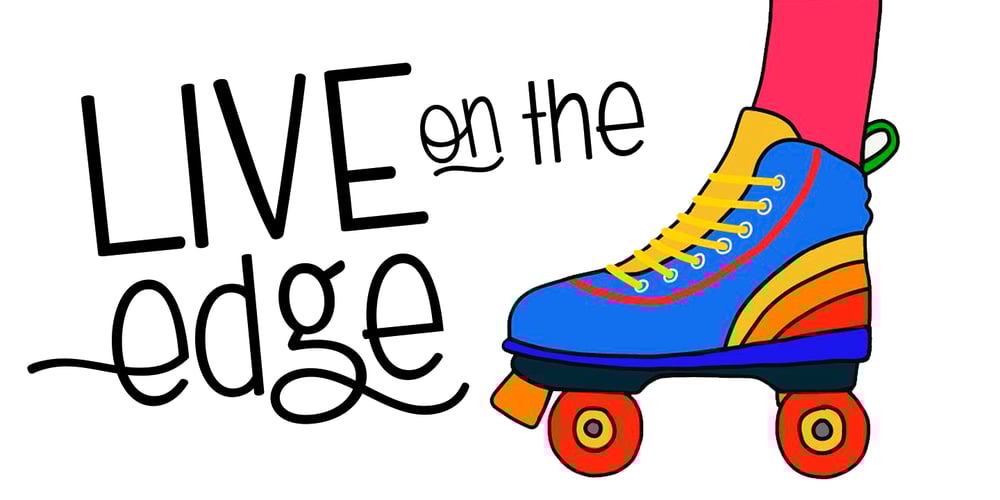
Magie Font Family was designed by Carine de Wandeleer and published by Eurotypo. Magie contains 1 styles and family package options. Magie is a handwritten font with a strong casual and expressive character. It has the peculiarity of being able to combine capitals and small letters in the same word or in all capital letters. Containing full OpenType features such as stylistic and contextual alternates, swashes, ligatures, initial and terminal forms, up to seven stylistic sets per letter (in uppercase and lowercase). We also include catchwords and ornaments. Imagine the amount of combinations you might do giving your text freshness and naturalness without equal! Magie has a Central European language support to fit your design. This font may looks beautiful on wedding invitations, greeting cards, logos, posters, labels, t-shirt designs, logos, business cards and is perfect for use in ink or watercolor works, fashion, magazines, packaging and food menus, children’s books and more!